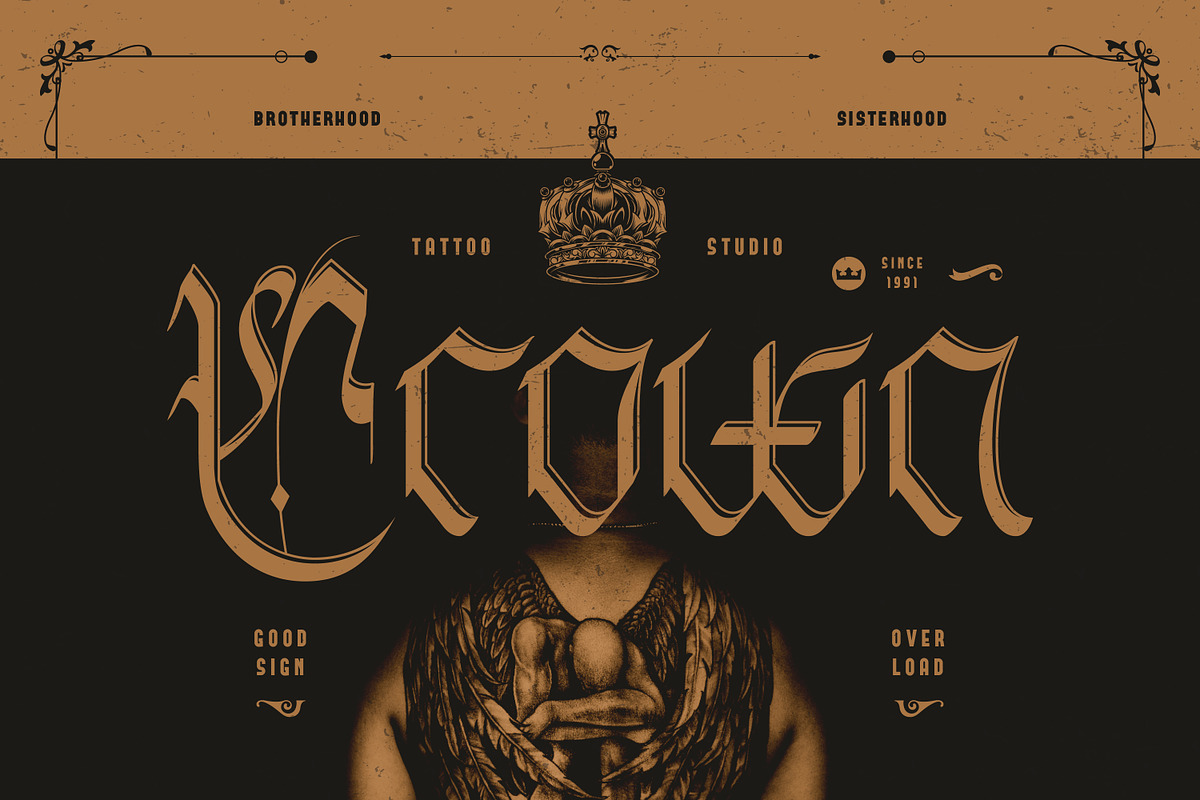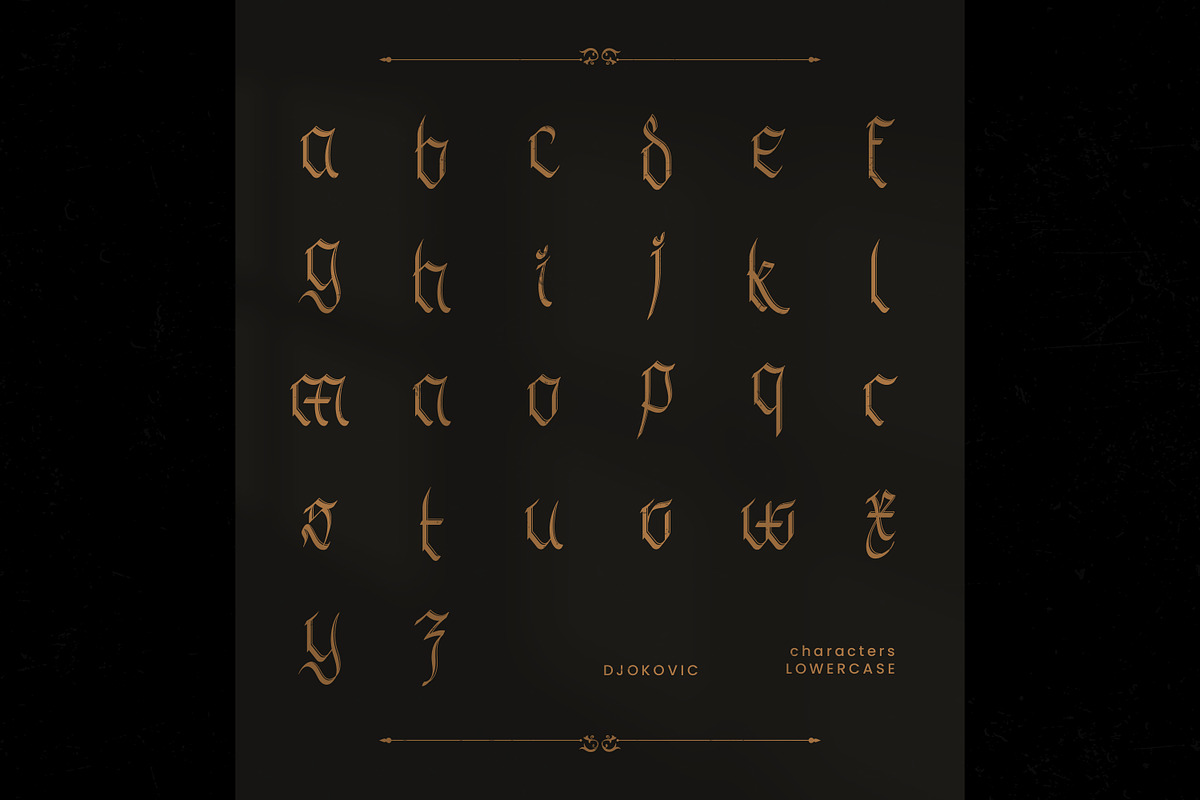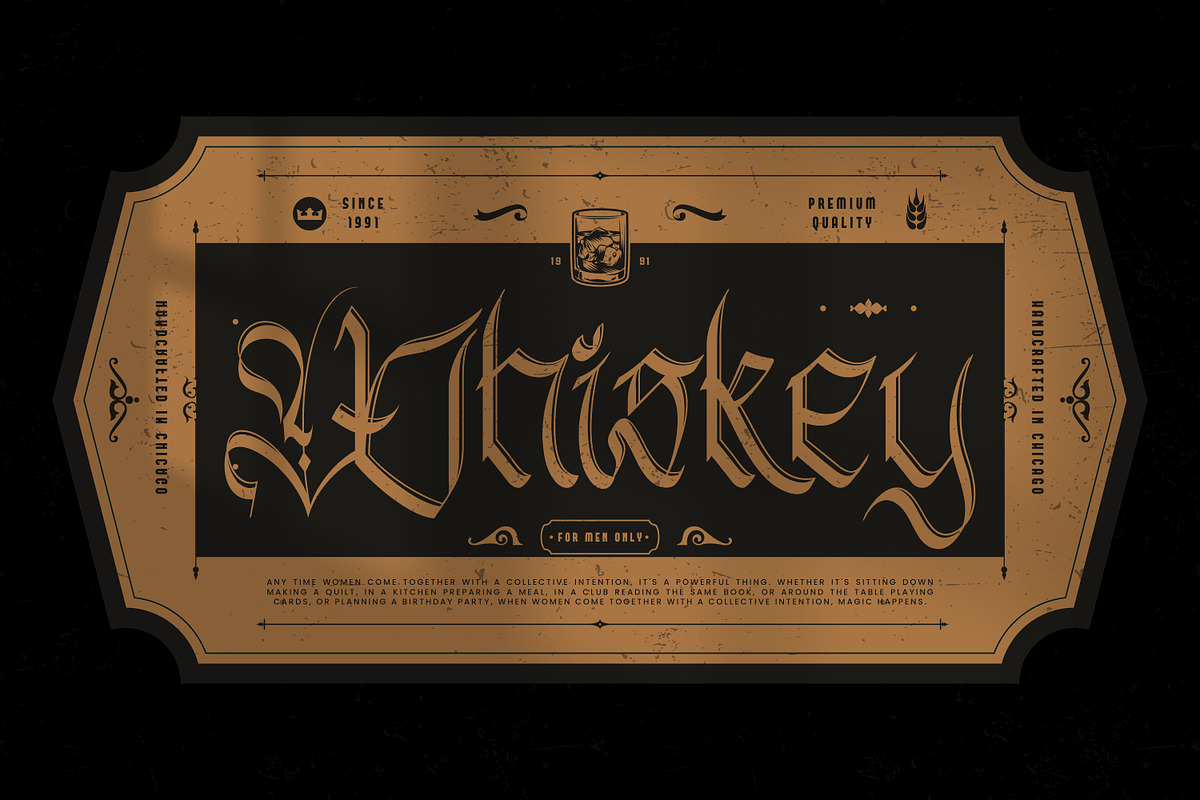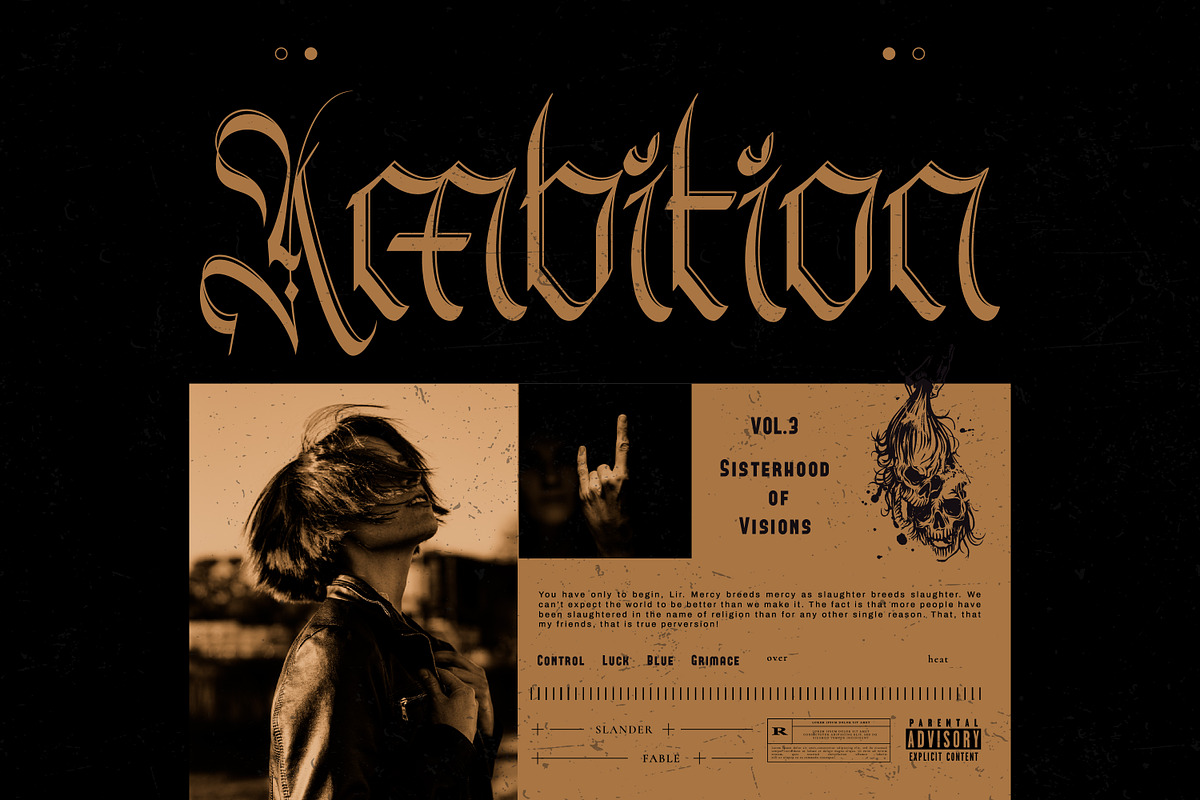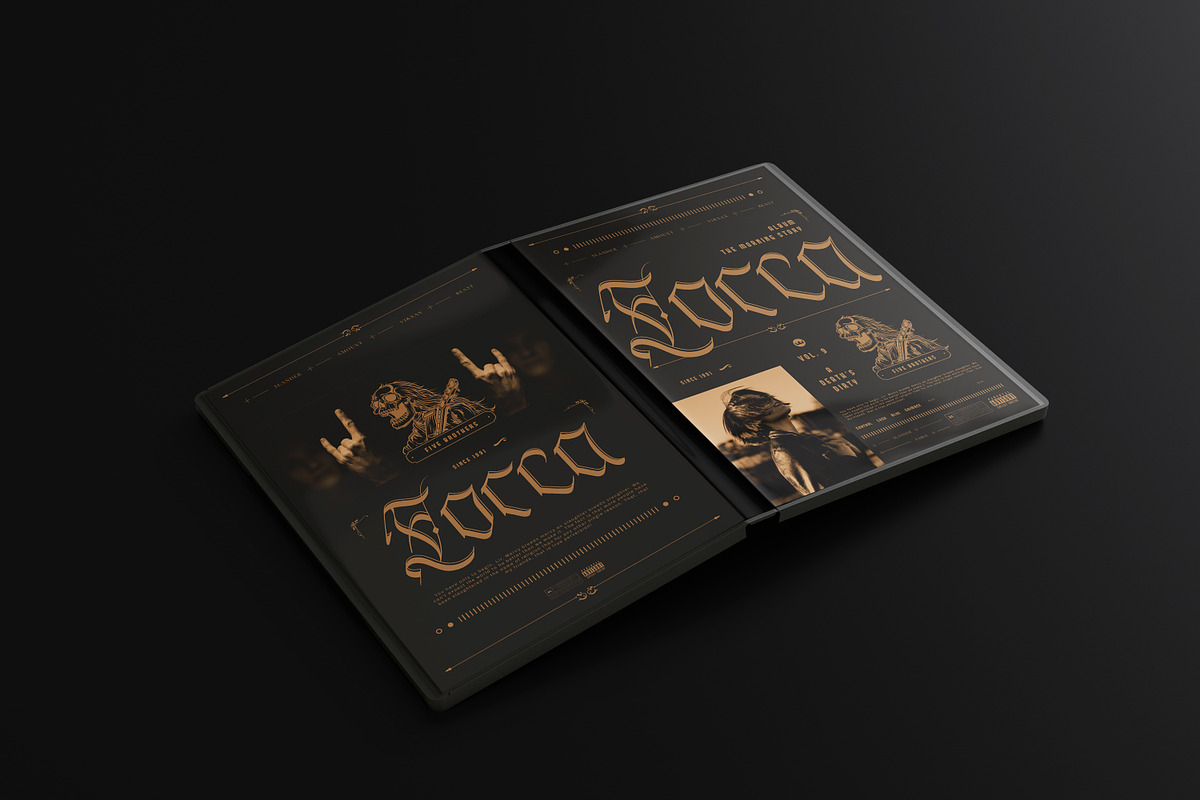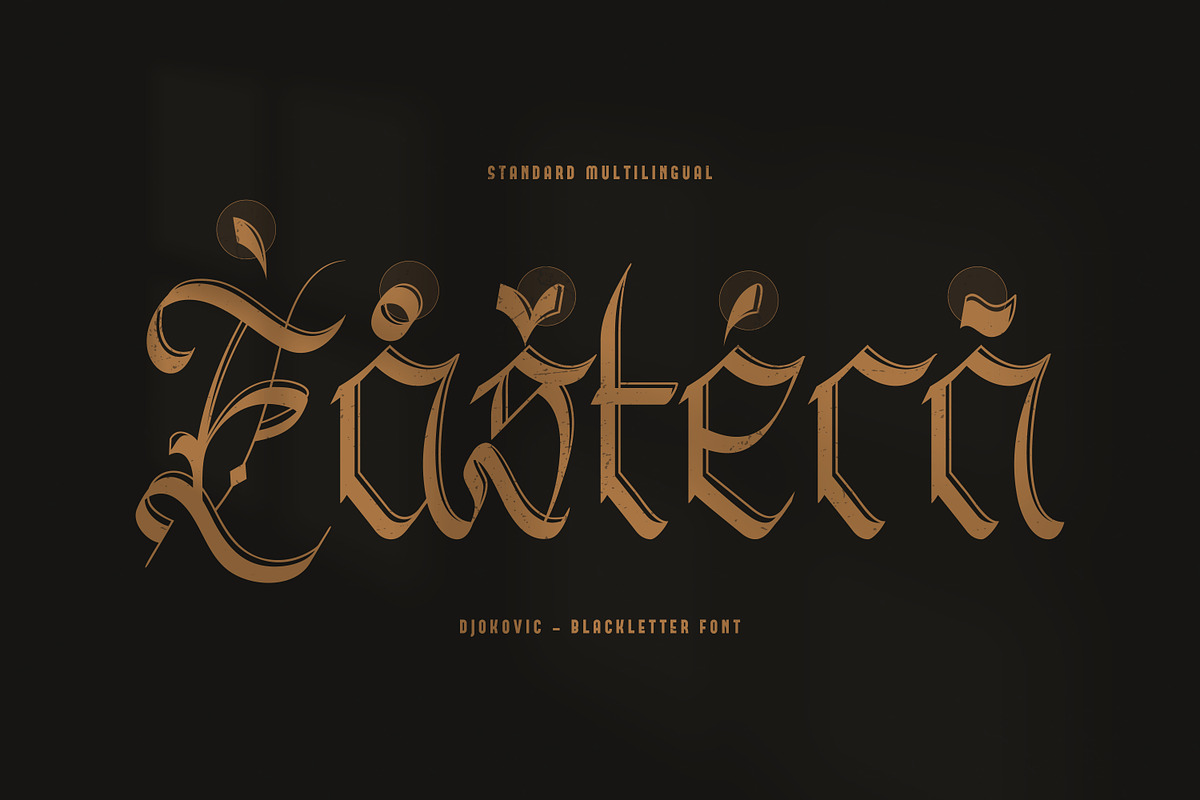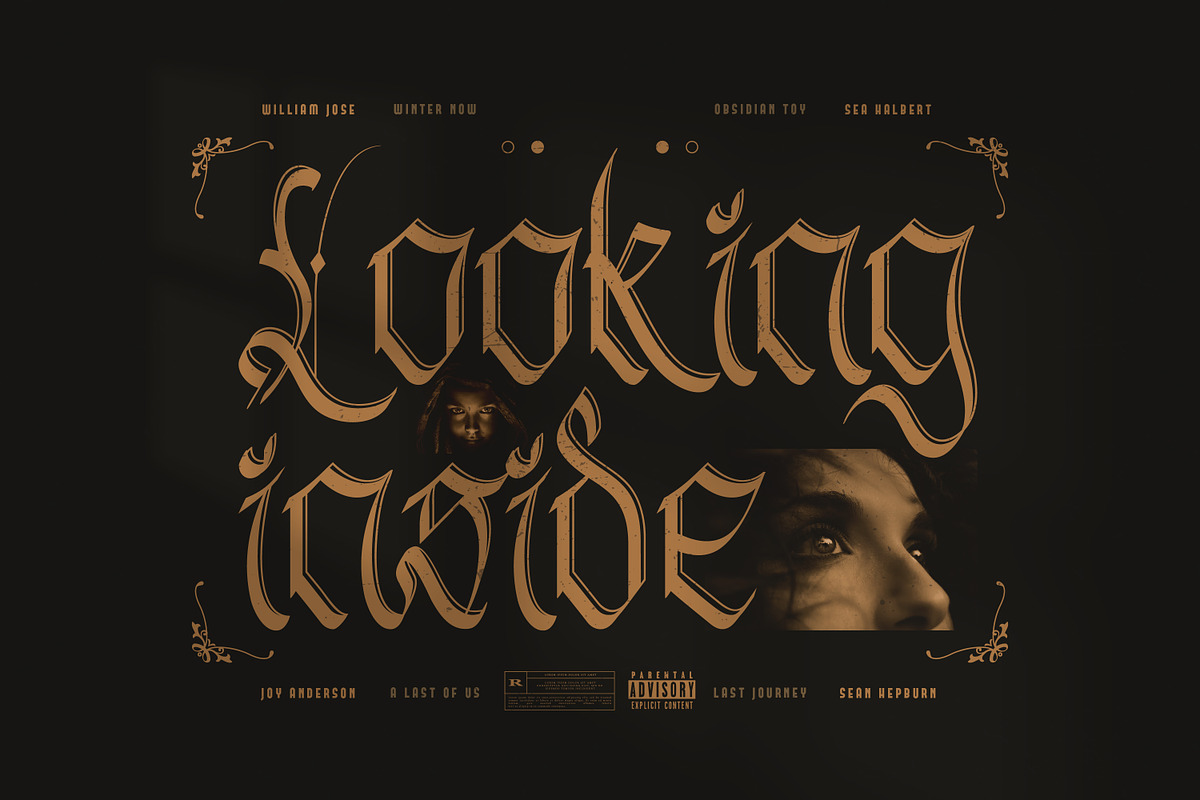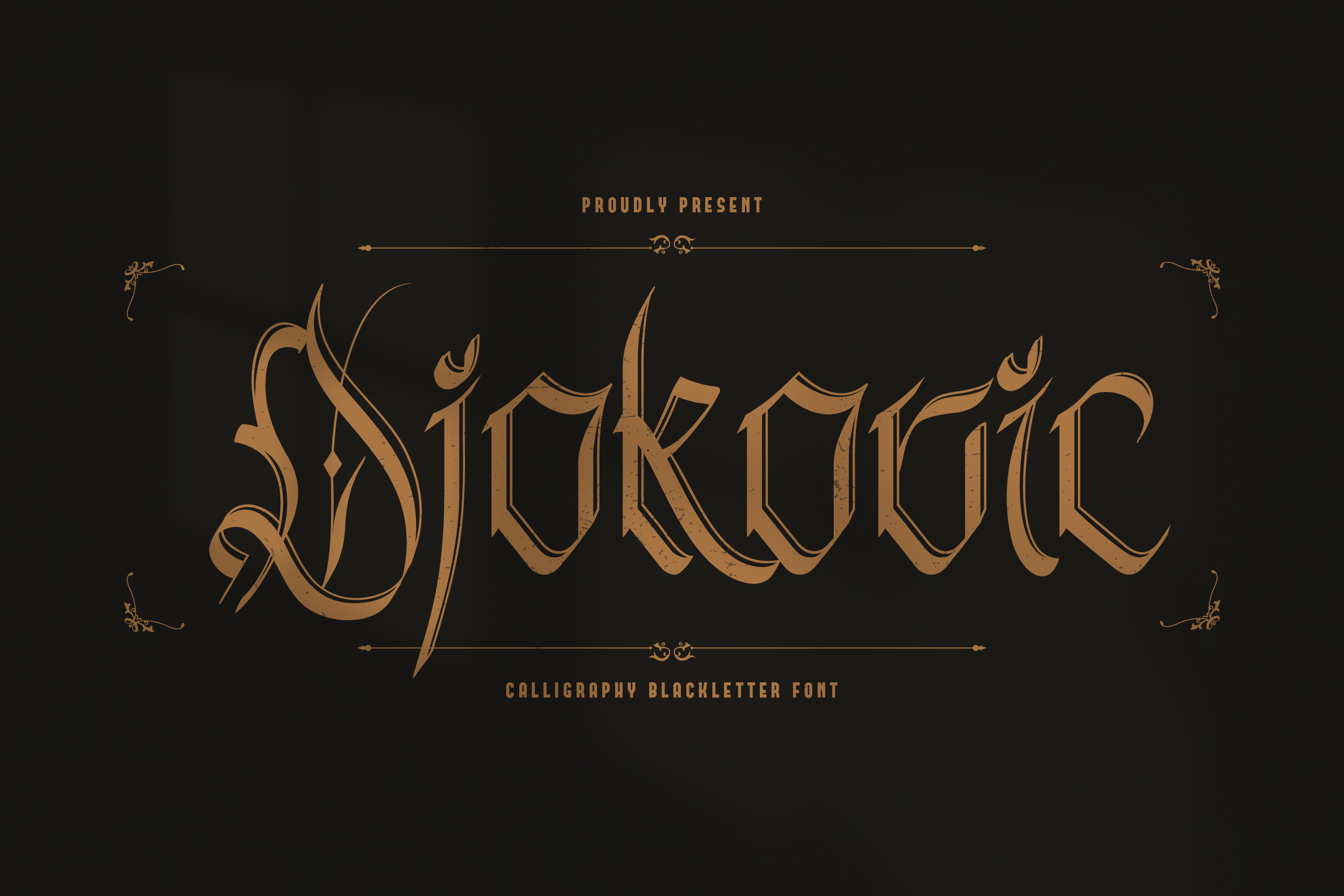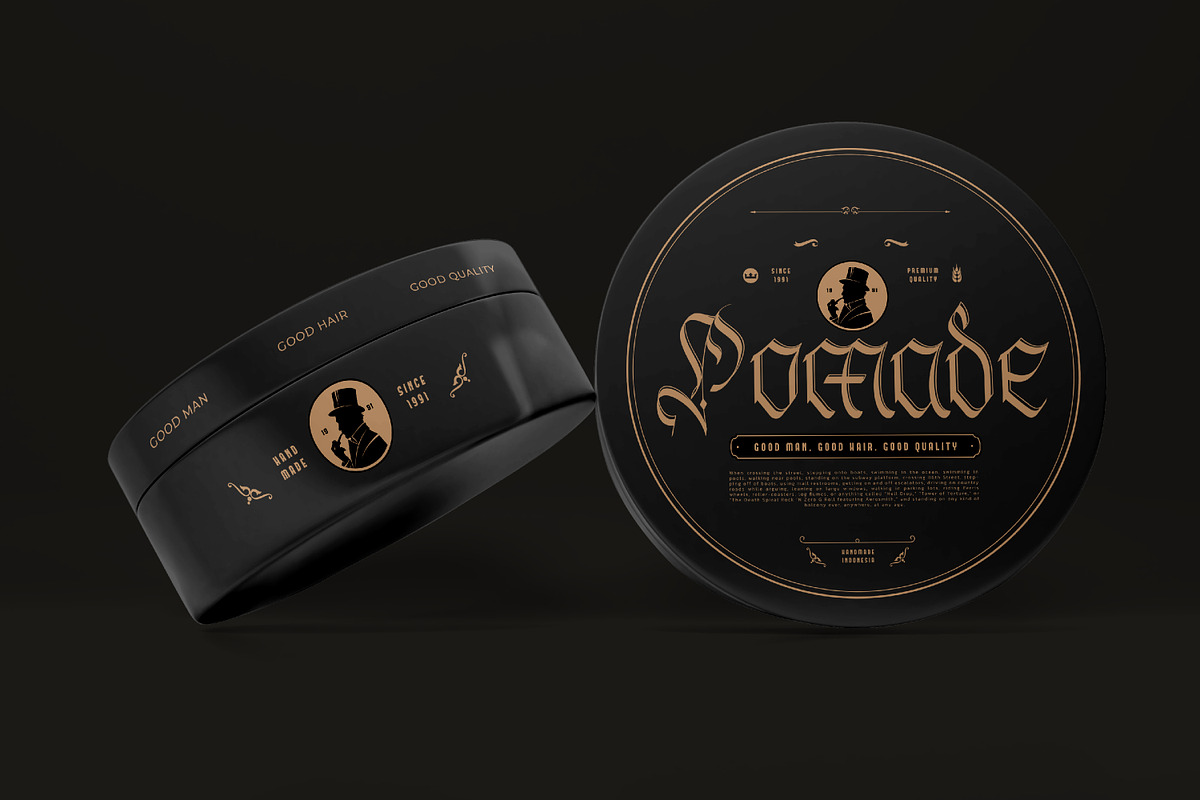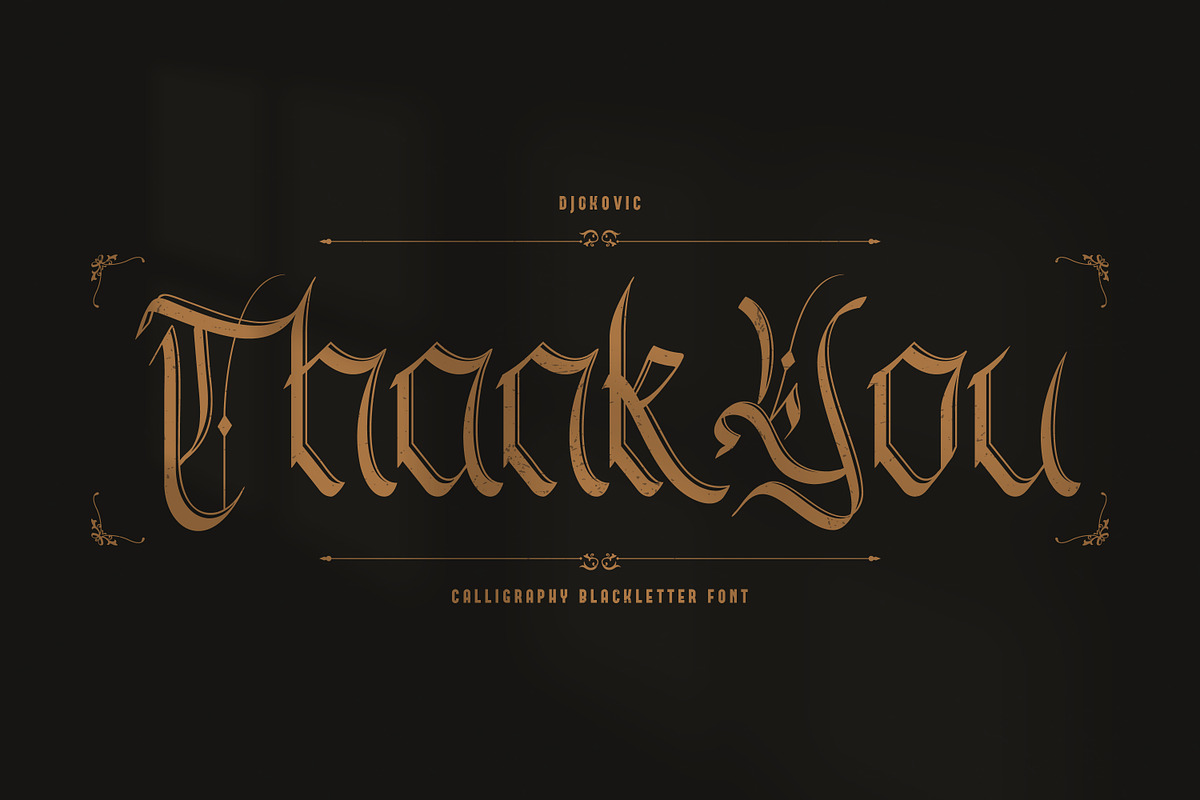
Djokovic Calligraphic Typeface
Djokovic is a calligraphic typeface with sharp, angular strokes and a medieval appearance. Ideal for creating a vintage or traditional look for your design ideas.